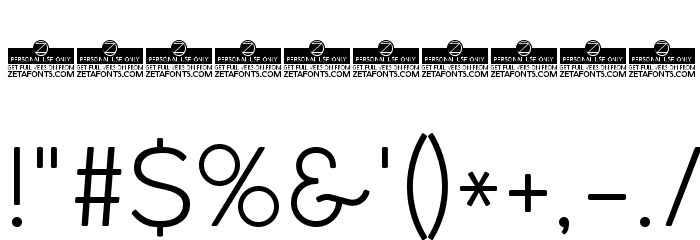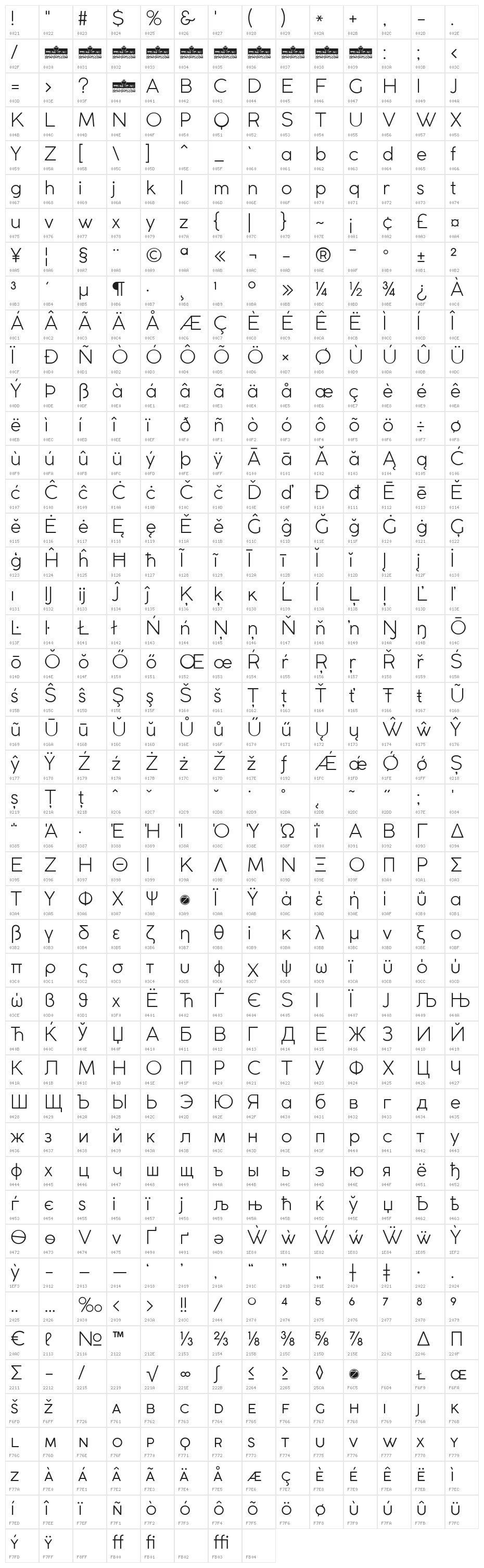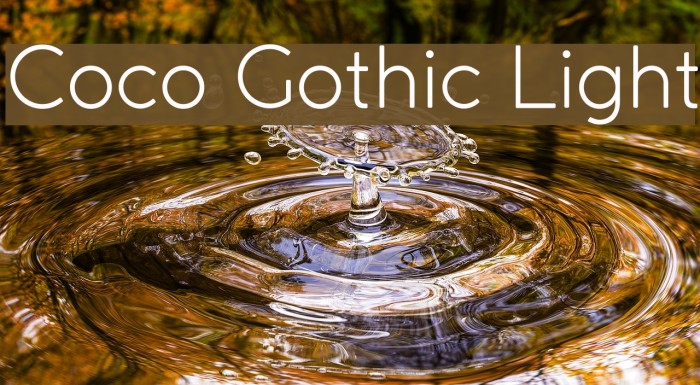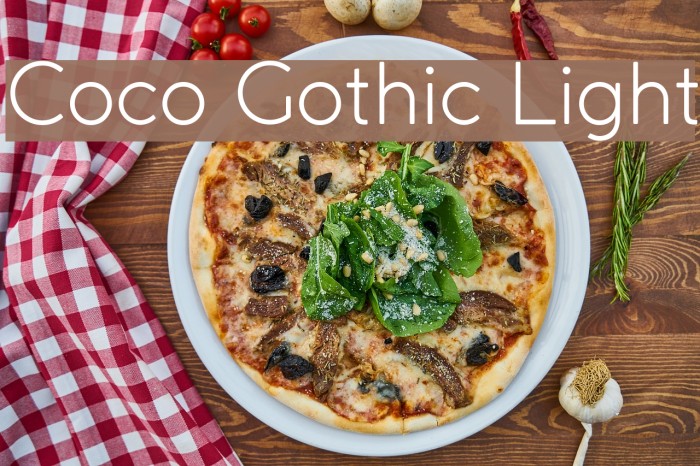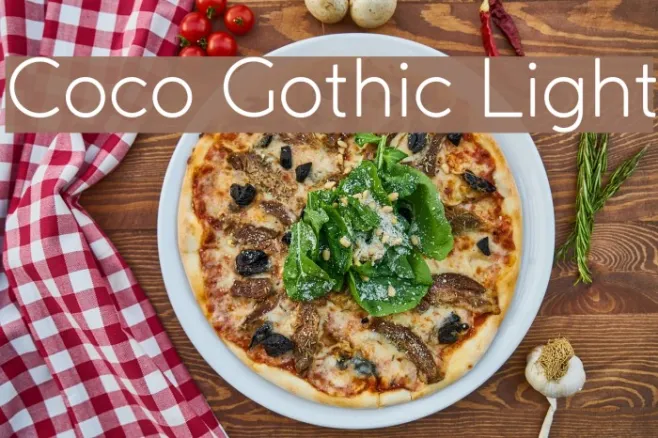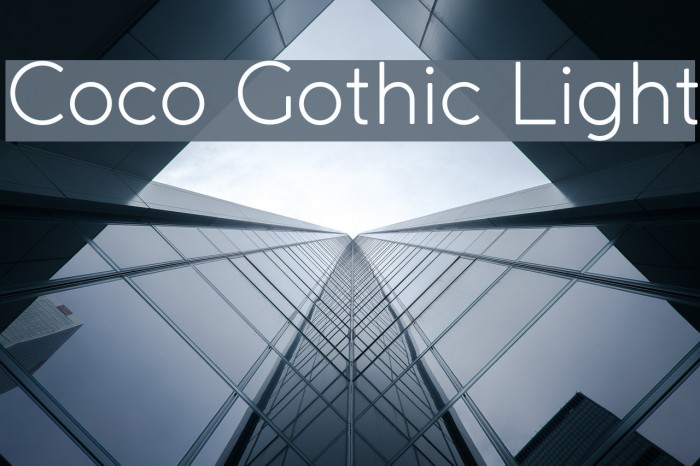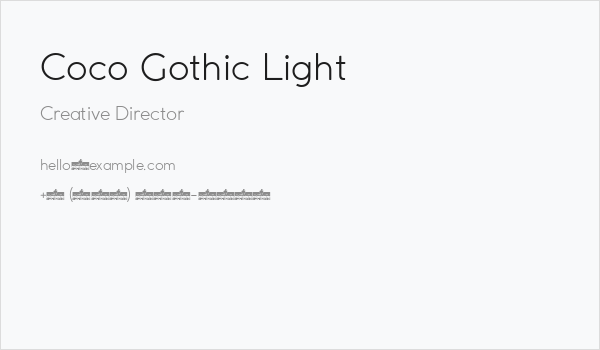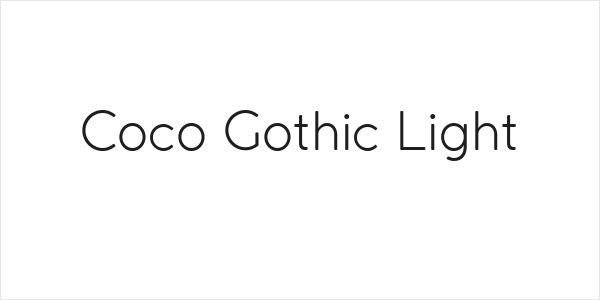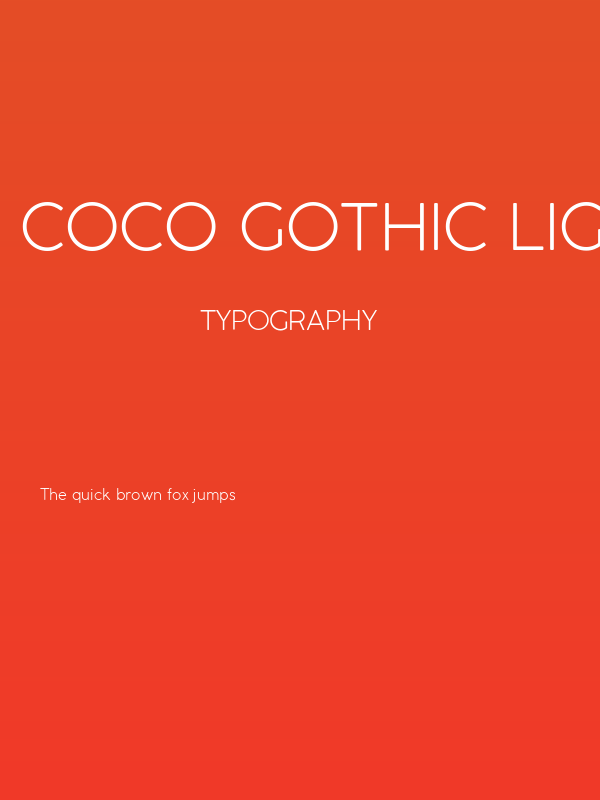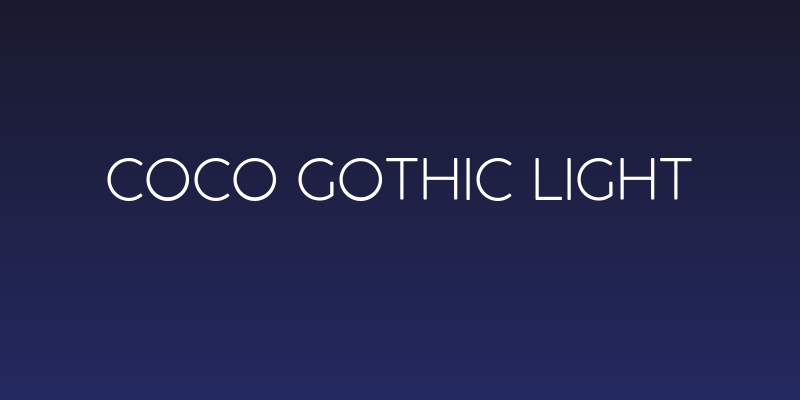
Coco Gothic Light Font
Coco Gothic Light Description
This typeface exhibits a clean and modern aesthetic with its geometric shapes and uniform stroke widths. The characters are well-proportioned, featuring a minimalist design that enhances readability. Uppercase and lowercase letters maintain a consistent style, with smooth curves and straight lines. The numerals and special characters are designed to match the overall sleek appearance, making it versatile for various applications. Its simplicity and elegance make it suitable for contemporary design projects.
| Proposed Projects | Ideal for branding, web design, advertising, and editorial layouts where a modern and clean look is desired. |